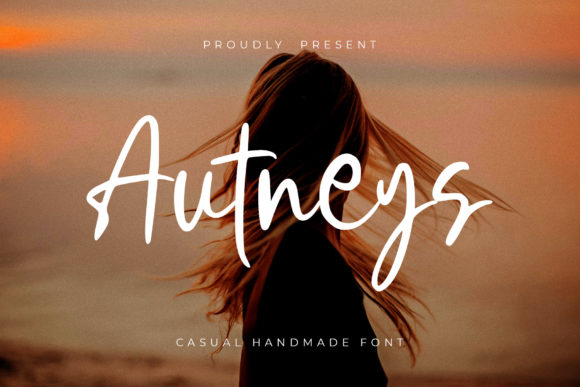
The Designer’s Delight: Autneys Font
I’ll never forget the time I was working on a luxury branding project for a high-end jewelry client. I had spent hours perfecting the logo design, but something was missing. The text just didn’t feel luxurious enough. I scoured font libraries and design blogs, but nothing seemed quite right. That’s when I stumbled upon Autneys Font. It was like a breath of fresh air – elegant, refined, and with a unique feel that instantly elevated my design.
What I Love About Autneys Font
- ✨ Beautifully crafted with a light, airy feel that’s perfect for luxury designs
- ✅ Unique and distinctive, making it easy to stand out from the crowd
- 💫 Highly legible, even at smaller font sizes
- 🎨 Versatile and adaptable, suitable for a wide range of design projects
While Autneys Font is an exceptional font, there are a few things to keep in mind:
- ⚠️ Some users may find the font a tad too delicate for certain design applications
- 🤔 Limited availability of stylistic alternates, which may limit creative experimentation
The Designer Inspiration Behind Autneys Font
Autneys Font was designed with the goal of creating a beautiful, elegant script font that would add a touch of luxury to any design project. Inspired by classic calligraphy and modern typography, Autneys Font is the perfect blend of traditional and contemporary design.
Q: What type of designs is Autneys Font best suited for?
A: Autneys Font is perfect for luxury branding, editorial design, and creative projects that require a touch of elegance.
Q: Is Autneys Font available in different weights or styles?
A: Currently, Autneys Font is available in a single weight, but it’s perfect for designs that require a light, airy feel.